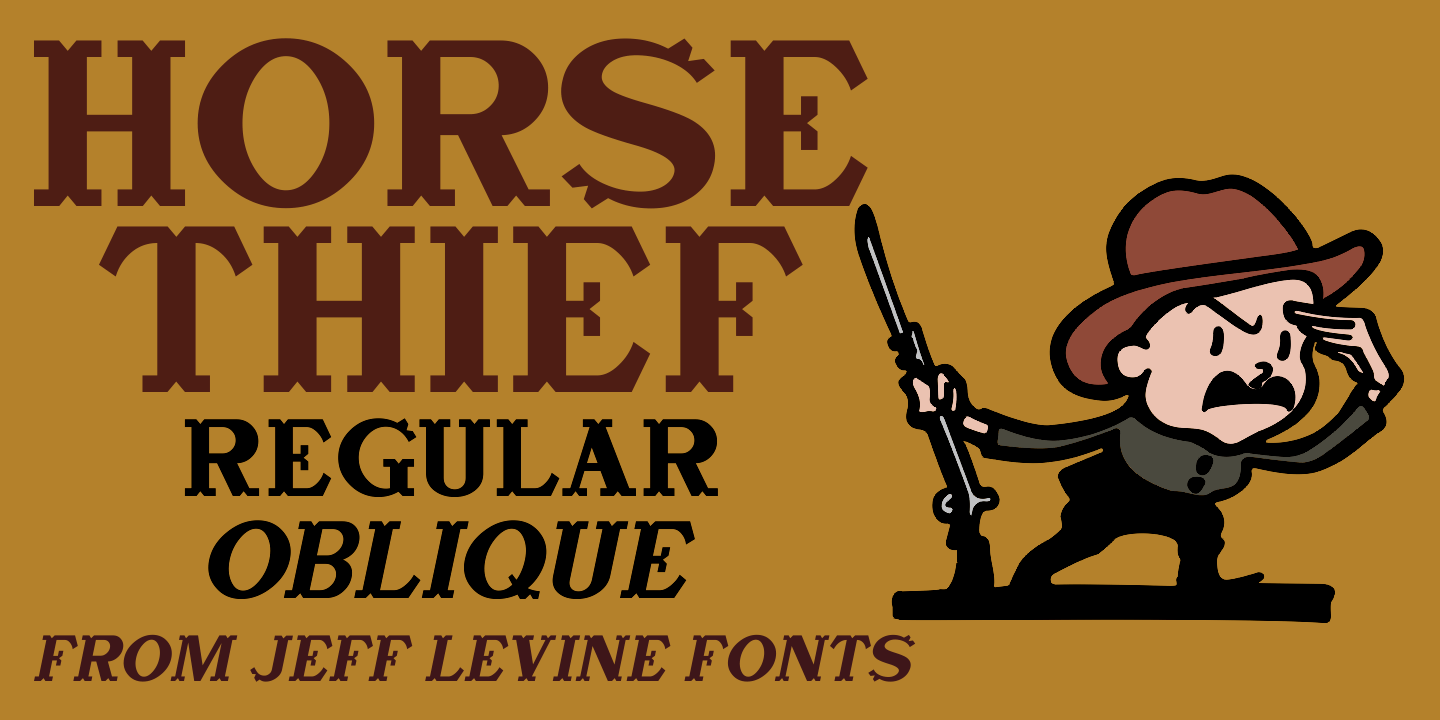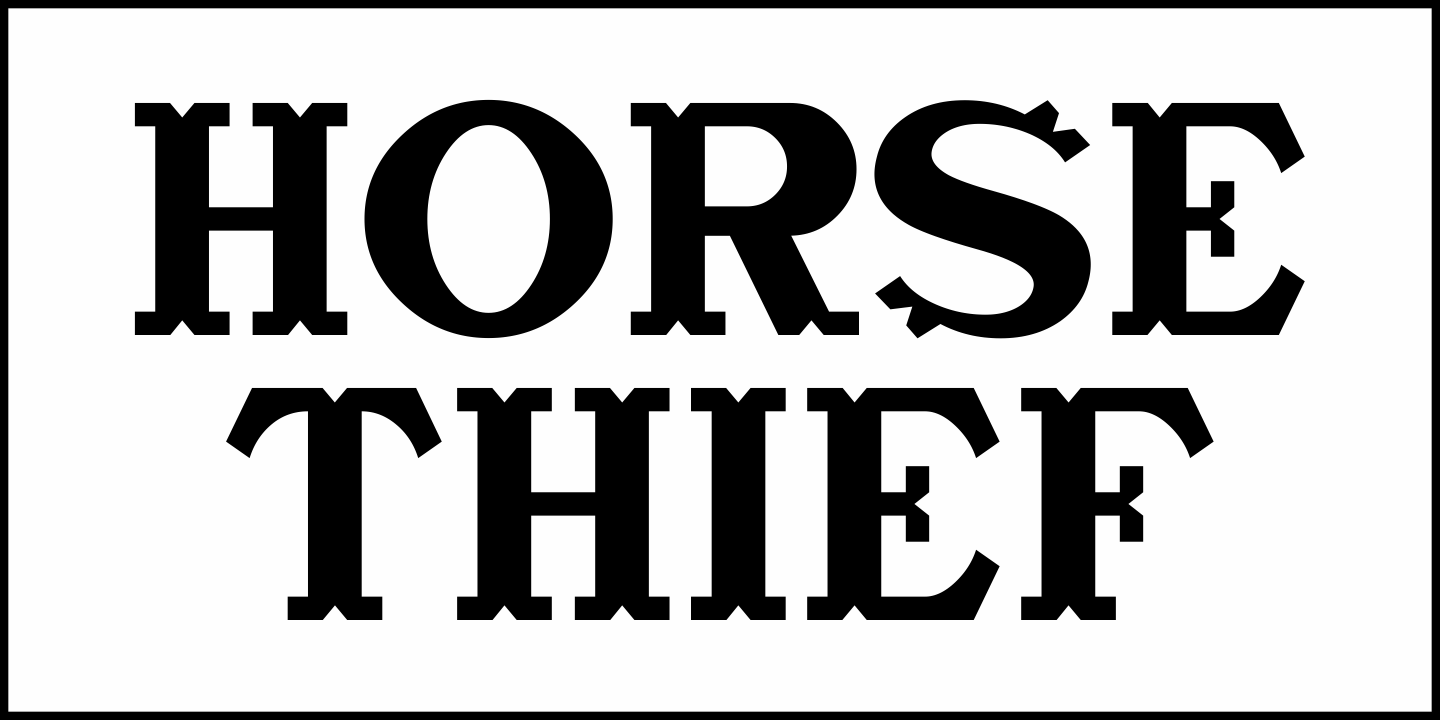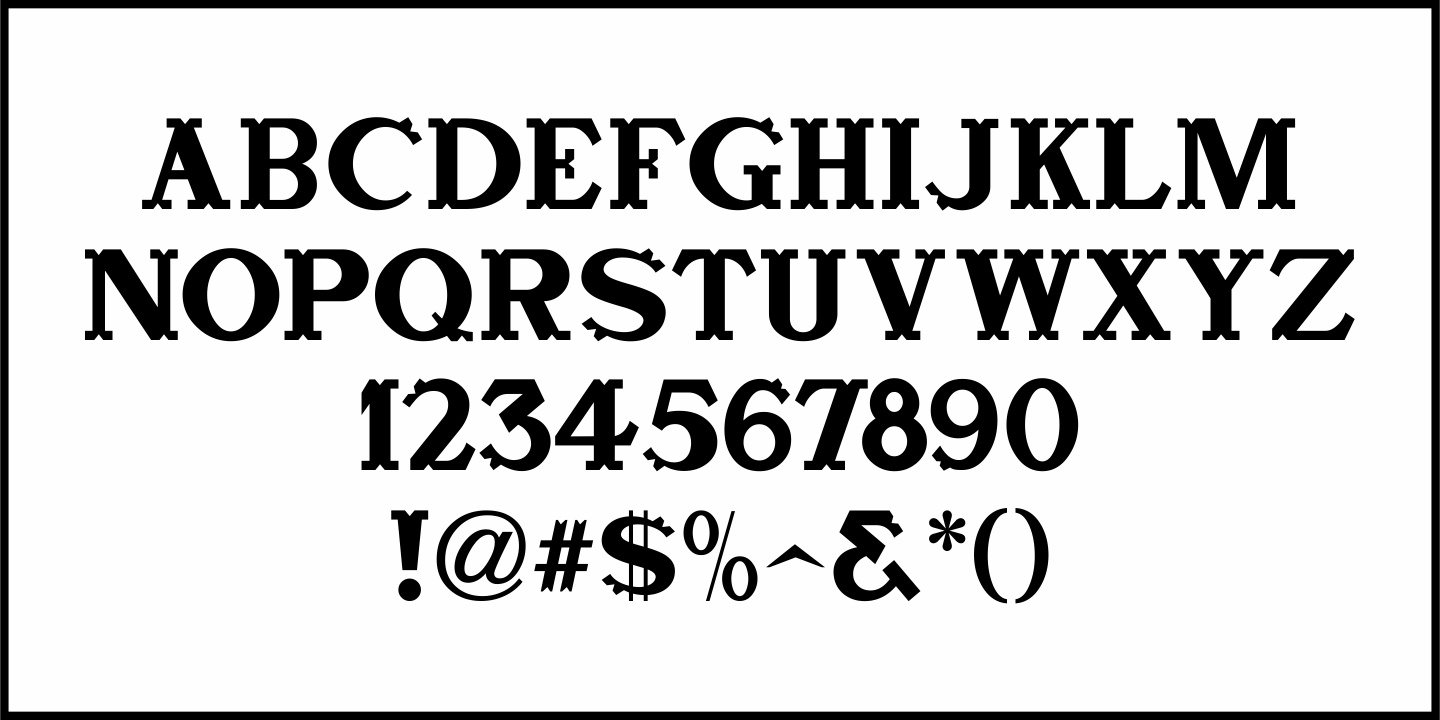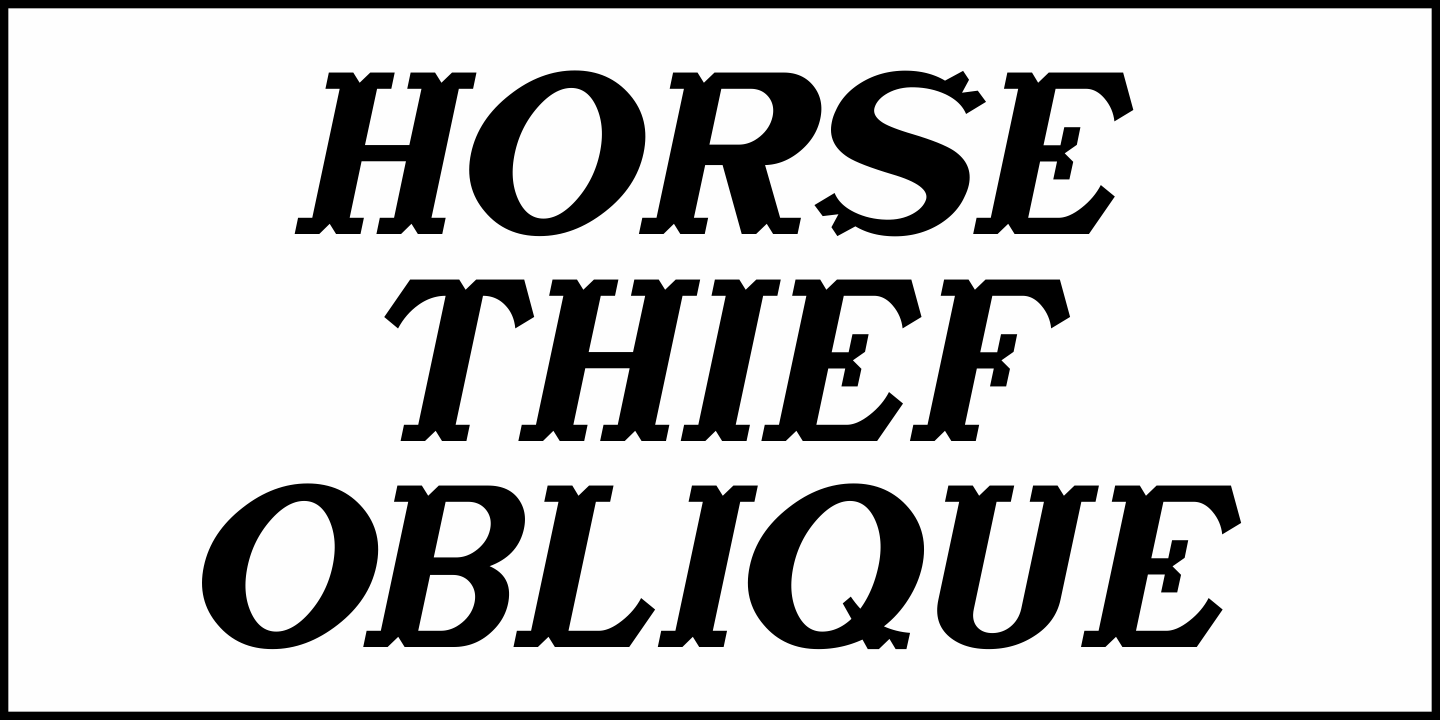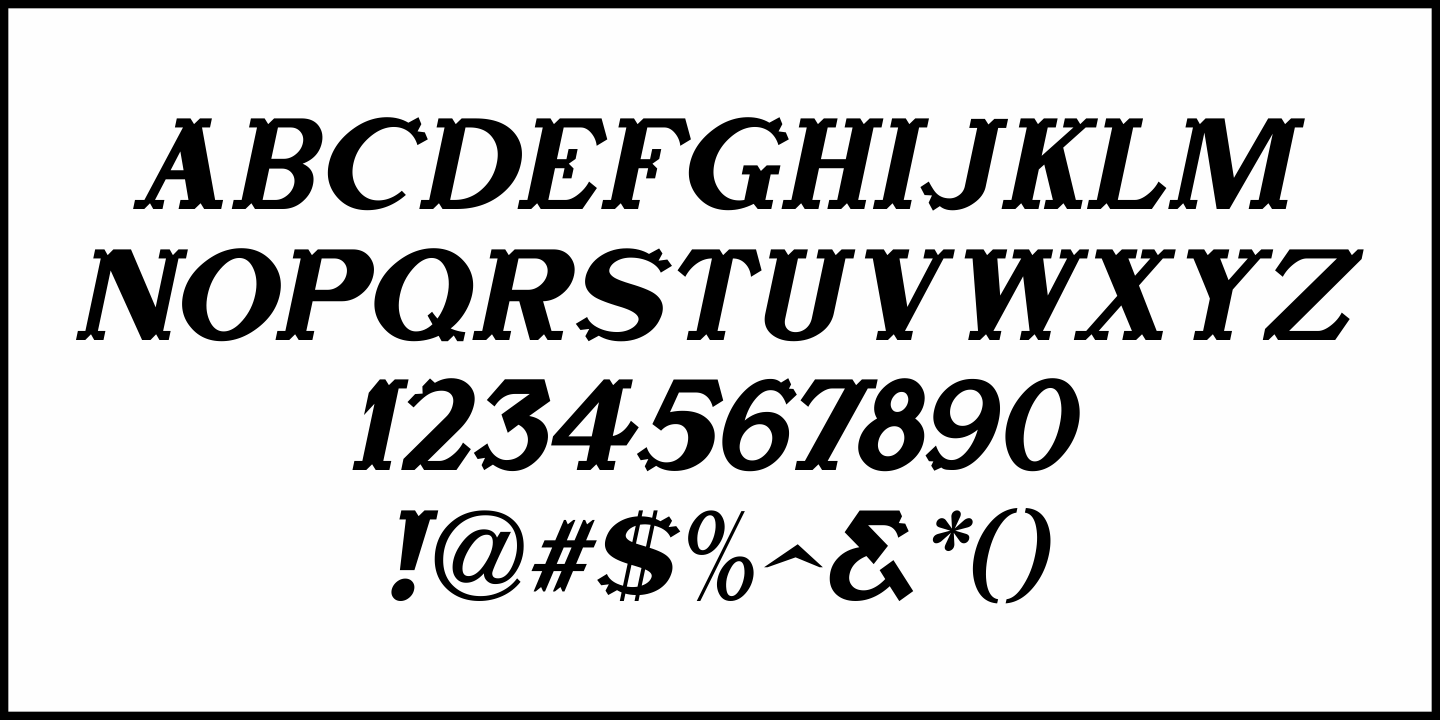
Horse Thief
The 1957 French publication 'La Letra Dans La Peinture et la Publicite” ('The Letter tn the Painting and Advertising”) had an illustration of split-serif letters and numbers with a decidedly Western feel.
This is now available as Horse Thief JNL in both regular and oblique versions.